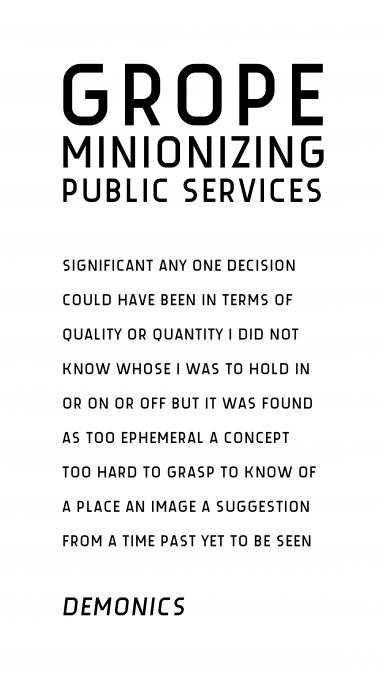
dm regulr
demonics
Regulr C
Dmitriy Sychiov (Sychoff)
all about proportions — inspired by regular_one
This looks pretty good and works so well at small sizes. 1O points!
I like this. It is beautifully balanced and certainly worth a 10/10
However, I think the 'Z' could be improved. Here are a couple of suggestions (I like the middle one myself)
Have I forgot about this? More please!